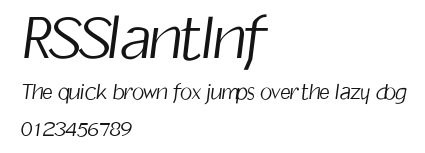
RSSlantInf Preview
• Font Name: RSSlantInf
• Full Font Name: RSSlantInf
• PostScript Name: RSSlantInf
About RSSlantInf.ttf
RSSlantInf.ttf is a modern, elegant sans-serif font designed for ultimate readability and visual harmony. Perfect for branding, headlines, web design, and print materials.